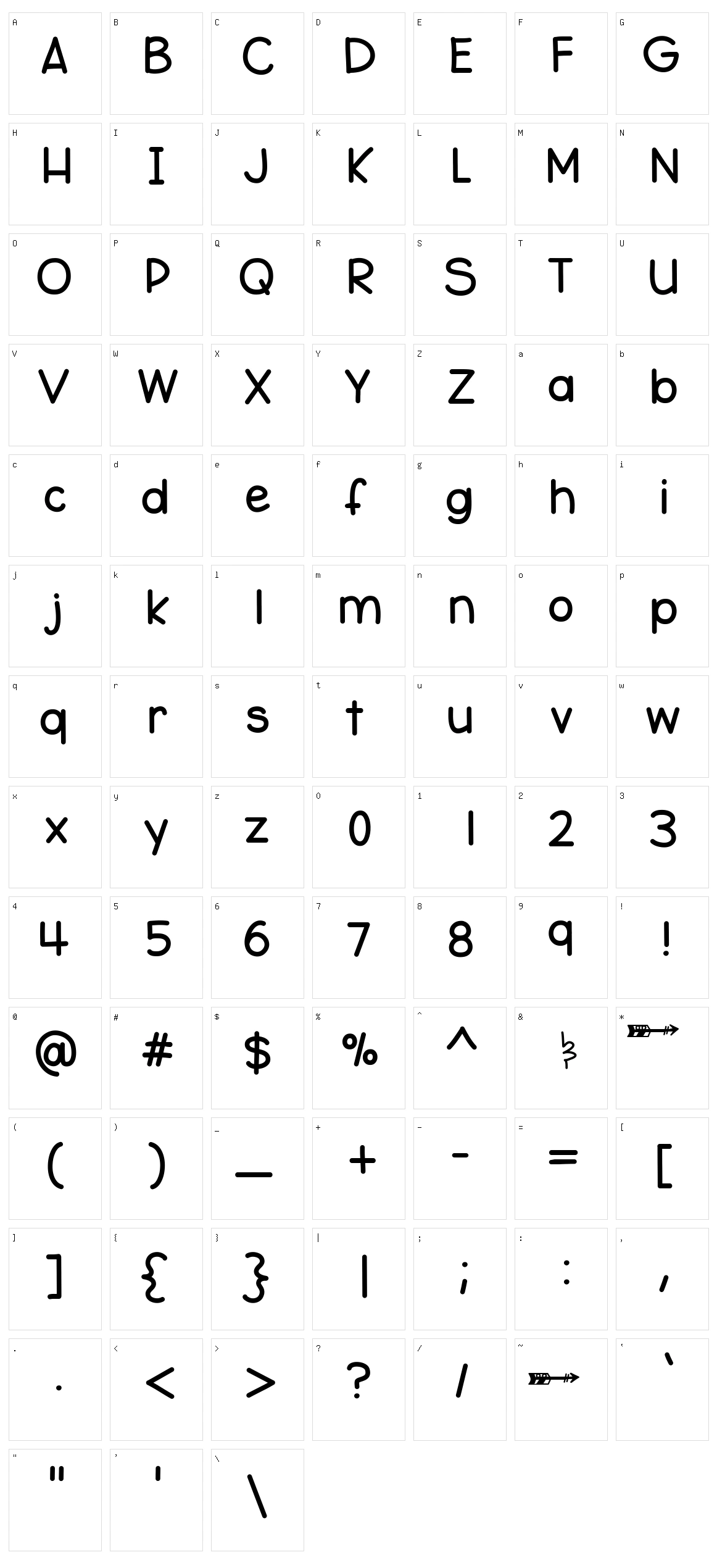
The free font Profeshhh is carefully designed by Lindsey Collins, showcasing a thoughtful balance of creativity and usability and falls under the Script font style. When you download the ZIP file, it contains only 25.99 KB of font files, making it lightweight and quick to download. Please review the license details below to understand permitted usage and distribution rights. If license information is not available, we recommend using this font for personal projects only or contacting the author directly for commercial usage permissions.